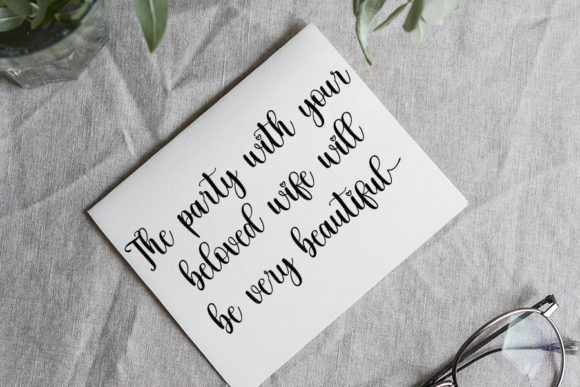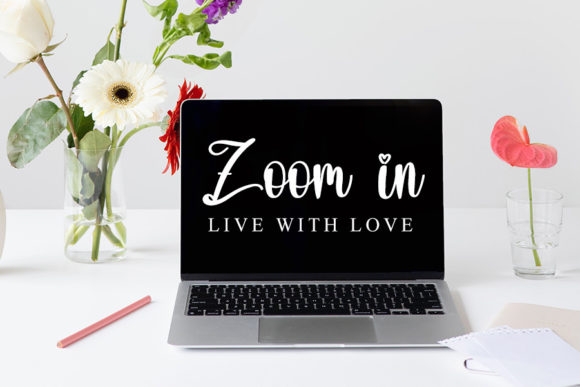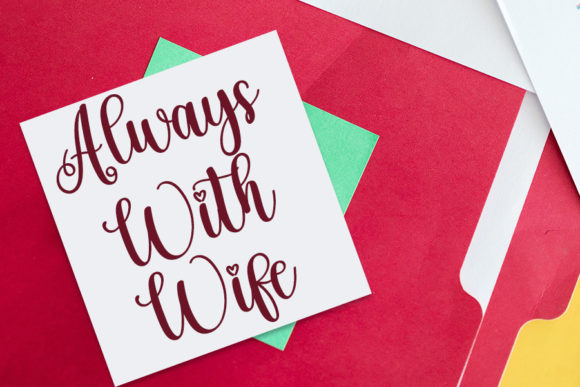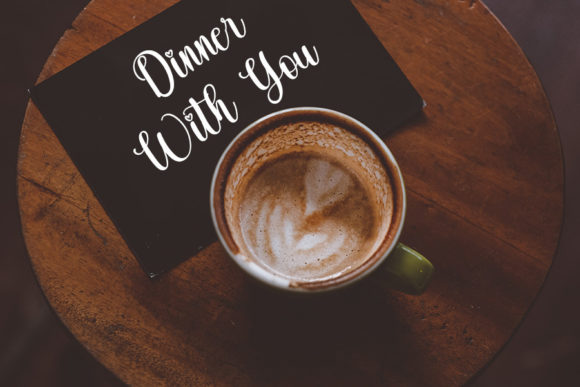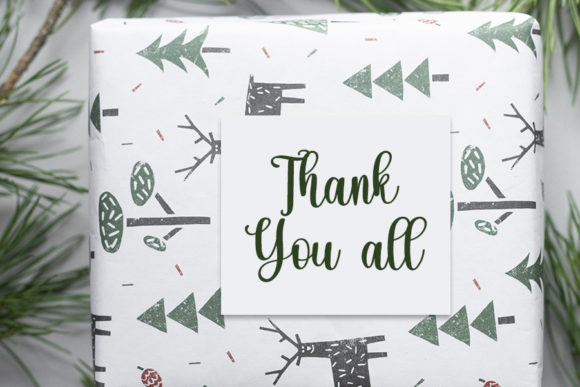
Introducing Doubles Font: Elevate Your Designs with Timeless Elegance
In the realm of typography, a font can make or break the aesthetic of a design project. For those seeking a stylish, yet balanced and varied typeface, Doubles Font emerges as an exceptional choice. This beautifully crafted handwritten font boasts a contemporary atmosphere, drawing inspiration from timeless classic calligraphy. The result is a typeface that is neither too thin nor too thick, but perfectly poised to enhance the beauty of your projects.
The Essence of Doubles Font
Doubles Font is a masterpiece of modern calligraphy, blending traditional techniques with a fresh, contemporary vibe. Its design is characterized by impeccable form, ensuring that each letter and word flows seamlessly into the next. This harmonious balance makes Doubles Font incredibly versatile, suitable for a wide range of applications, from elegant branding and advertising to creative crafting and personal stationery.
Key Features of Doubles Font
- Contemporary yet Classic: Doubles Font strikes the perfect balance between modern style and classic elegance, making it a versatile choice for various design needs.
- Balanced and Varied: With its carefully crafted strokes, this font offers a beautiful variation that adds depth and interest to any text.
- Impeccable Form: Inspired by timeless calligraphy, Doubles Font features precise and elegant letterforms that elevate the aesthetic of any project.
- Easy to Read: Despite its stylish nature, Doubles Font remains highly legible, ensuring that your message is conveyed clearly and effectively.
Applications of Doubles Font
The versatility of Doubles Font makes it an excellent choice for a multitude of design projects. Here are some of the areas where this font truly shines:
- Branding and Logo Design: Create a lasting impression with a logo that exudes elegance and sophistication.
- Stationery and Invitations: Add a touch of class to your personal or business stationery, wedding invitations, or event announcements.
- Packaging Design: Stand out on store shelves with product packaging that features beautiful, eye-catching typography.
- Digital Media: Enhance your website, blog, or social media graphics with a stylish font that captures your audience’s attention.
- Crafting and DIY Projects: Perfect for crafters, Doubles Font can be used in handmade cards, scrapbooking, and other creative endeavors.
Why Choose Doubles Font?
In a world where design trends come and go, Doubles Font stands out as a timeless choice that will not go out of style. Its unique blend of contemporary flair and classic charm ensures that your designs will remain relevant and visually appealing for years to come. Furthermore, the font’s balanced and varied nature makes it an excellent tool for designers and crafters looking to add a personal touch to their work.
Doubles Font is more than just a typeface; it’s a design statement. With its stylish, handwritten aesthetic and impeccable form, it offers a fresh yet timeless approach to typography. Whether you’re a professional designer or a crafting enthusiast, Doubles Font provides the perfect blend of elegance, versatility, and creativity to elevate your projects. Discover the beauty and potential of Doubles Font and let it be the voice of your brand or personal expression.